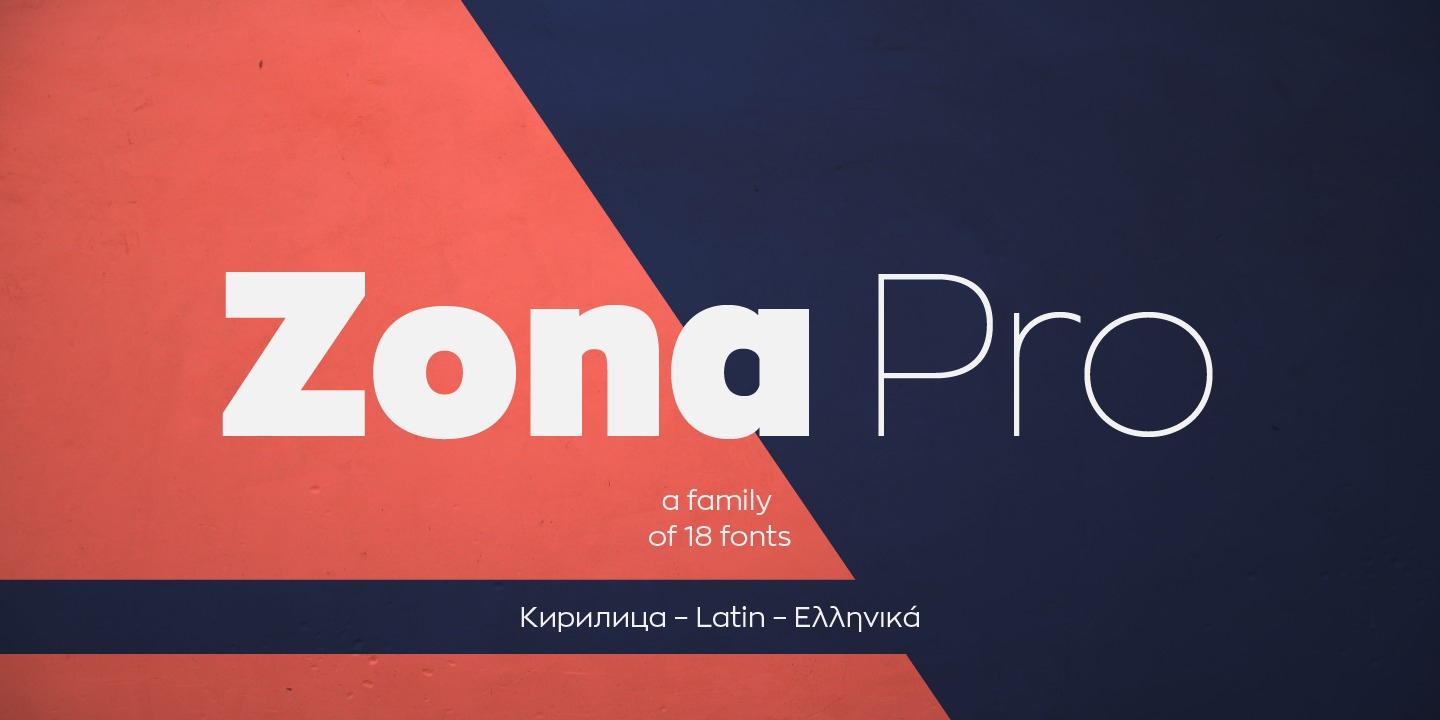
Zona Pro Font
Zona Pro Font is perfect for professional corporate identity, business presentation design, financial services branding, consulting firm logos, executive communications, premium business stationery, corporate annual reports, and sophisticated professional marketing.
What makes Zona Pro Font exciting is its executive authority that combines professional gravitas with contemporary refinement and systematic excellence. The font features commanding letterforms with balanced proportions and authoritative character that evoke boardroom discussions, strategic planning, and the confident leadership of successful organizations. Its distinctive professional styling and corporate appeal communicate competence, reliability, and executive presence, making every message feel endorsed by proven leadership and backed by institutional excellence.
The Zona Pro Font family includes regular weight with uppercase and lowercase letters, numerals, punctuation marks, and comprehensive business symbols. Premium versions often feature multiple weights, italics, and executive alternates that provide complete typographic solutions for complex corporate communication systems.
The authoritative character of Zona Pro Font makes it particularly valuable for Fortune 500 companies, management consulting firms, and executive search organizations. Its excellent readability across all business formats ensures strategic communications and corporate messaging remain clear while maintaining the distinctive professional aesthetic that appeals to C-suite executives and business decision-makers.
Corporate communication specialists appreciate how Zona Pro Font effortlessly conveys executive presence and institutional strength. The font's commanding proportions and professional details create authoritative business materials that establish confidence with audiences seeking proven leadership, strategic expertise, and the systematic approach of successful corporate management.
The versatile authority of this typeface extends to investment banking, executive coaching, and corporate law where professional credibility drives business relationships. Zona Pro Font Free Download provides creative professionals with an essential tool for developing memorable, leadership-focused designs that resonate with audiences who value executive excellence, corporate governance, and the commanding presence of professional authority in today's competitive business environment.